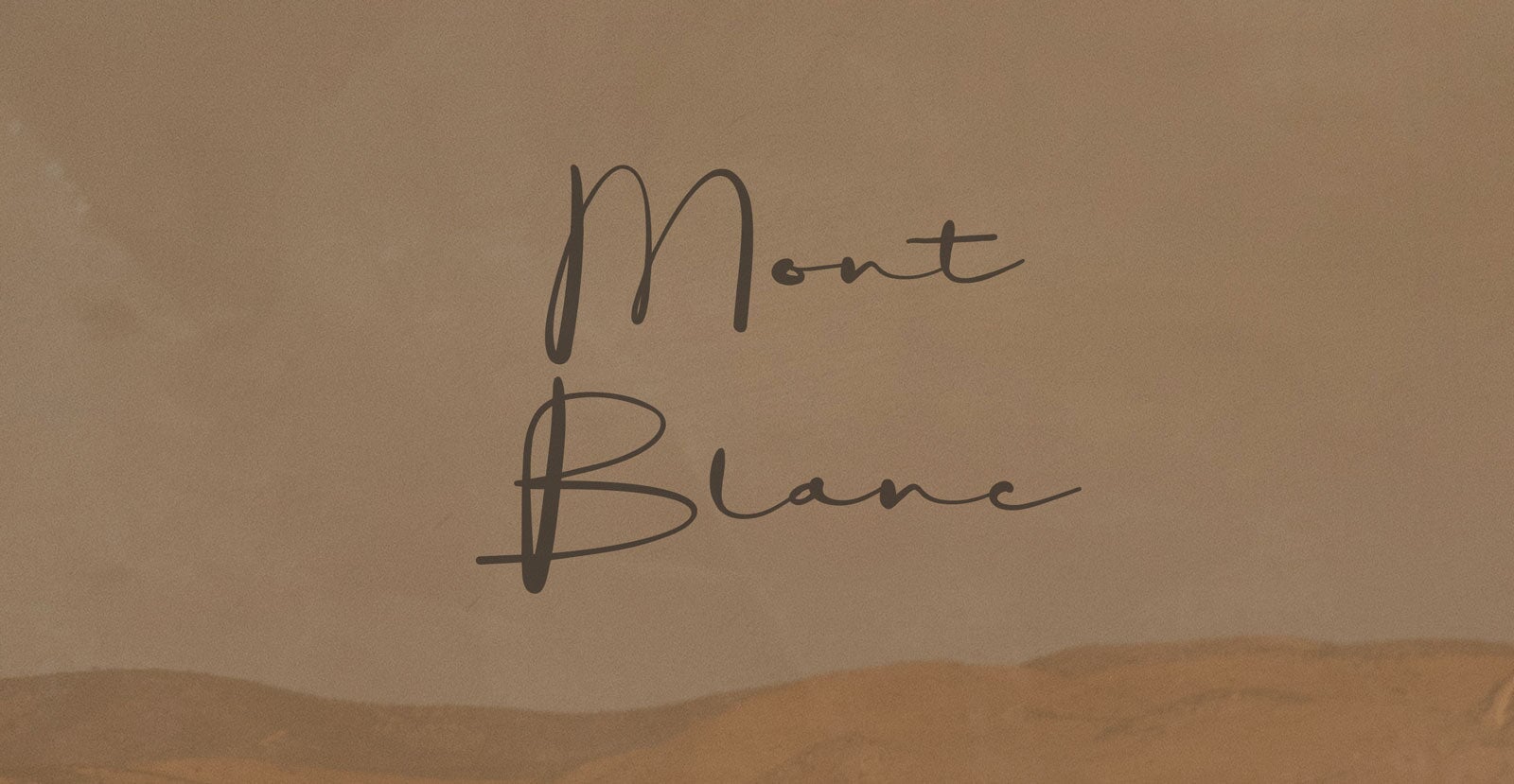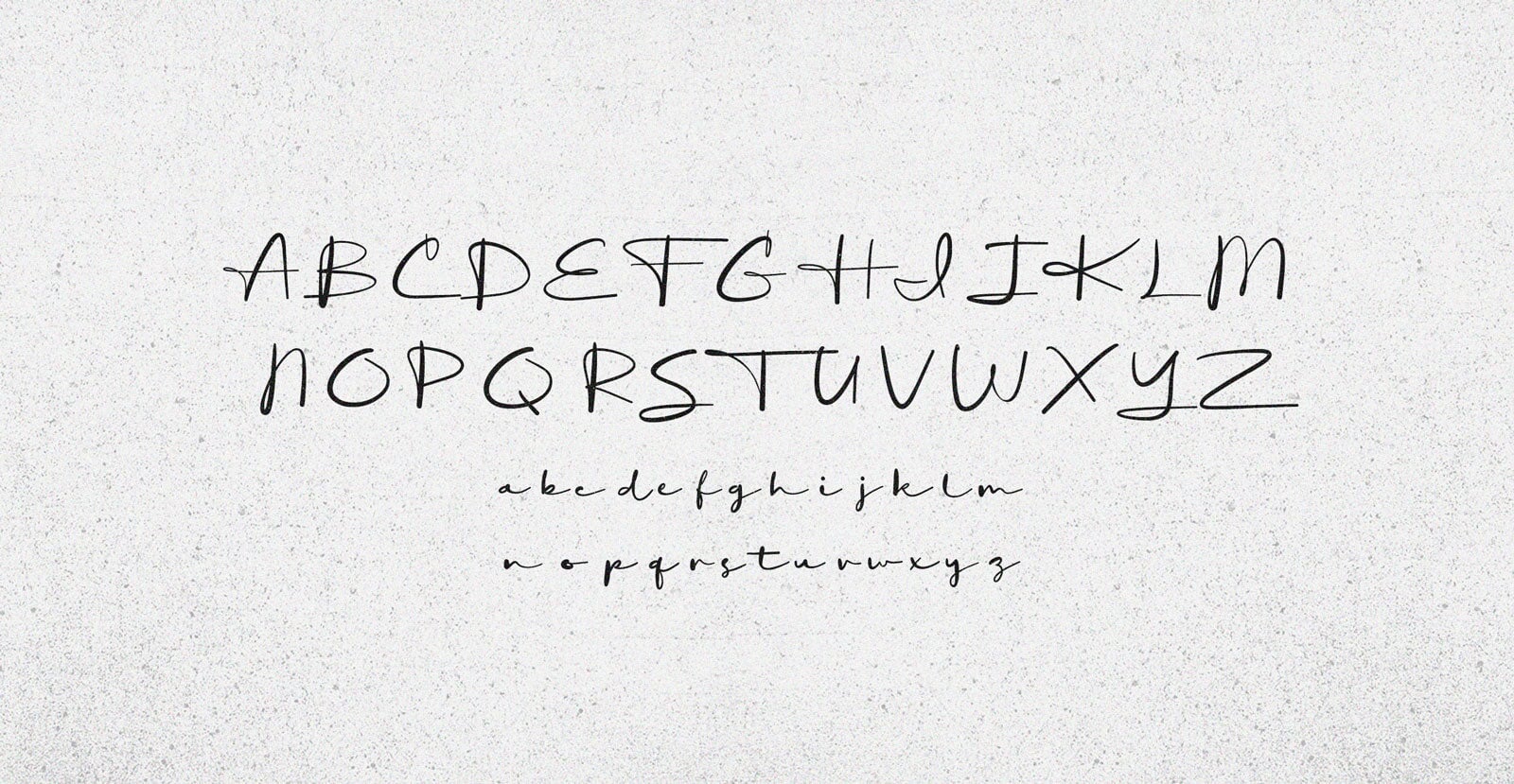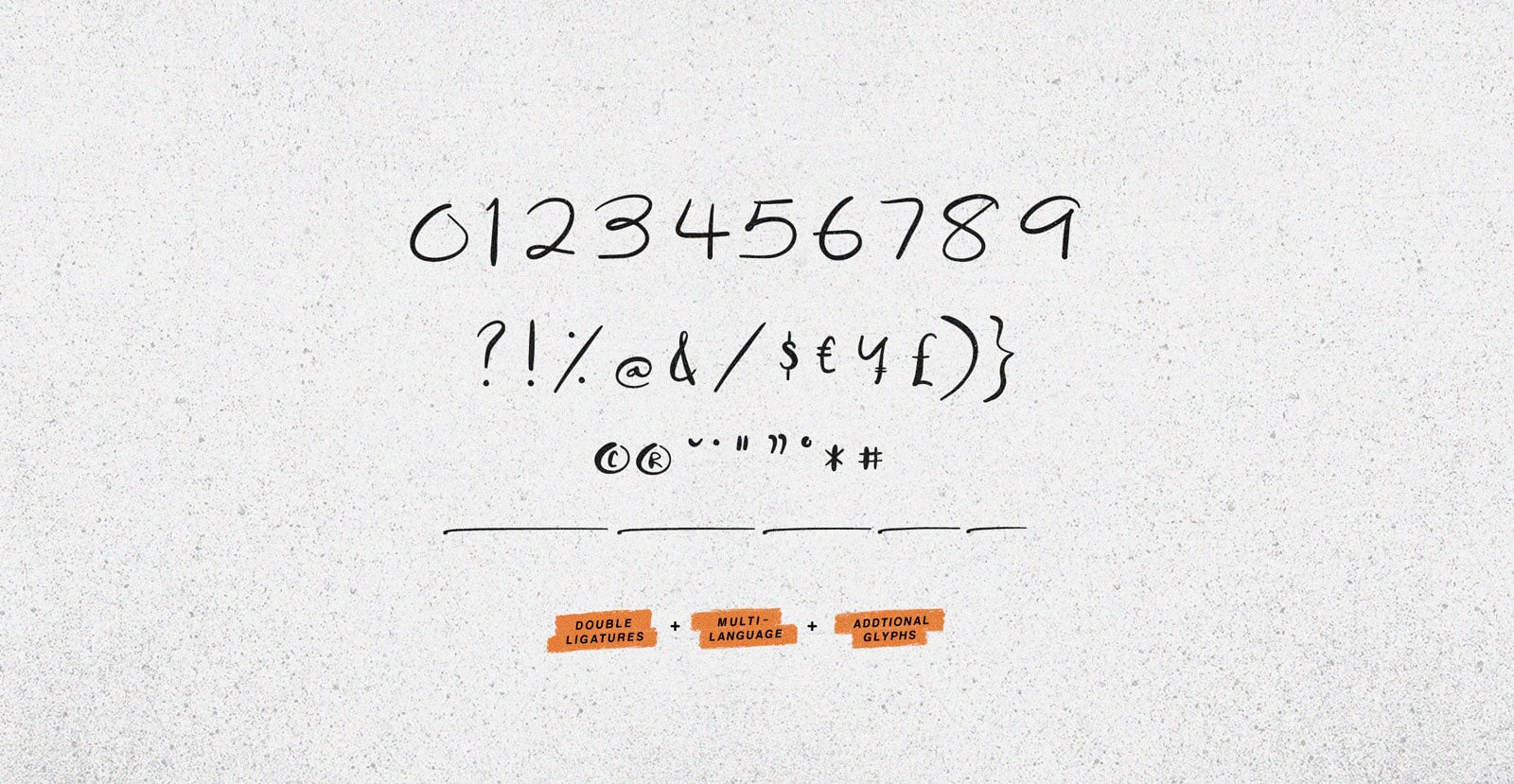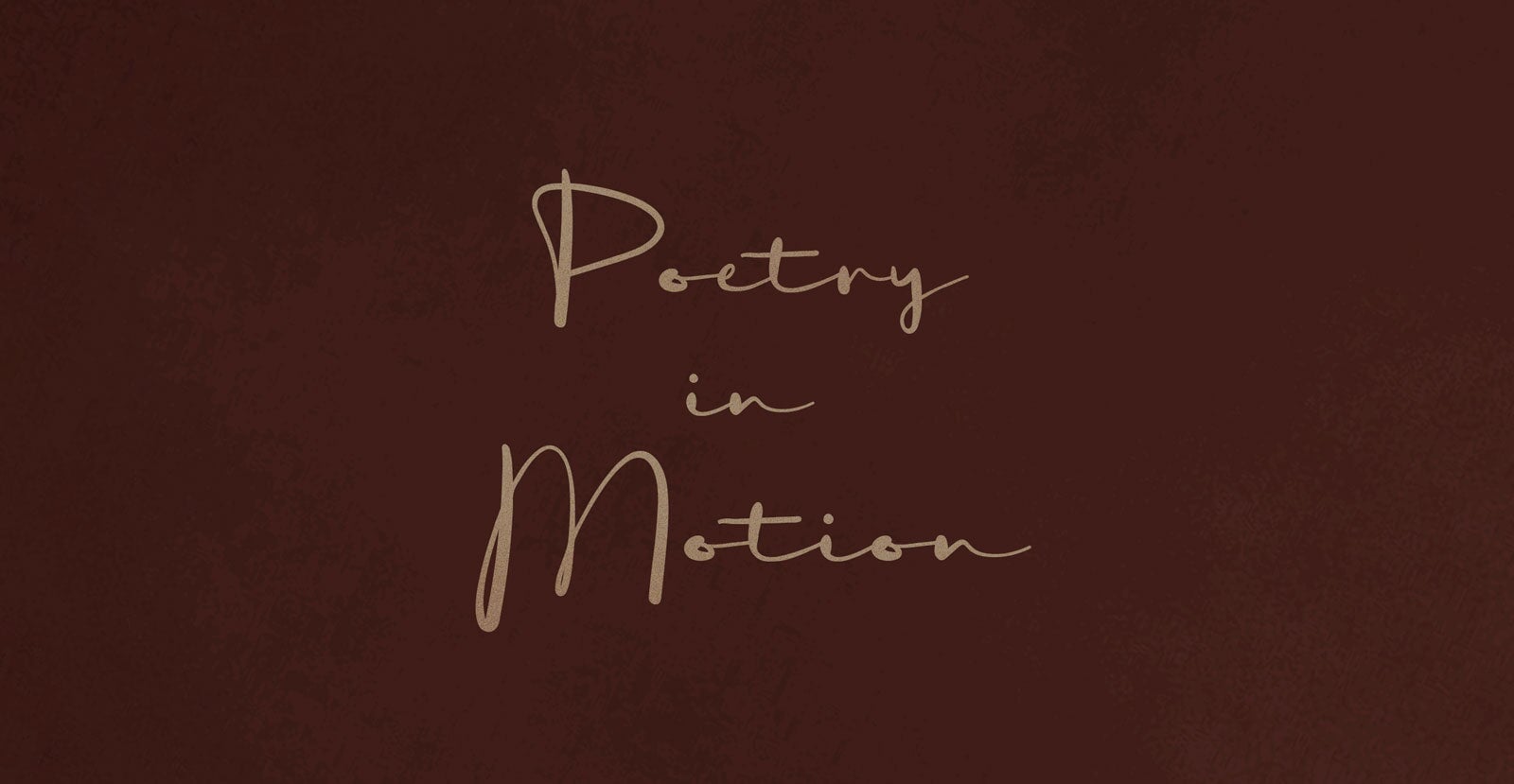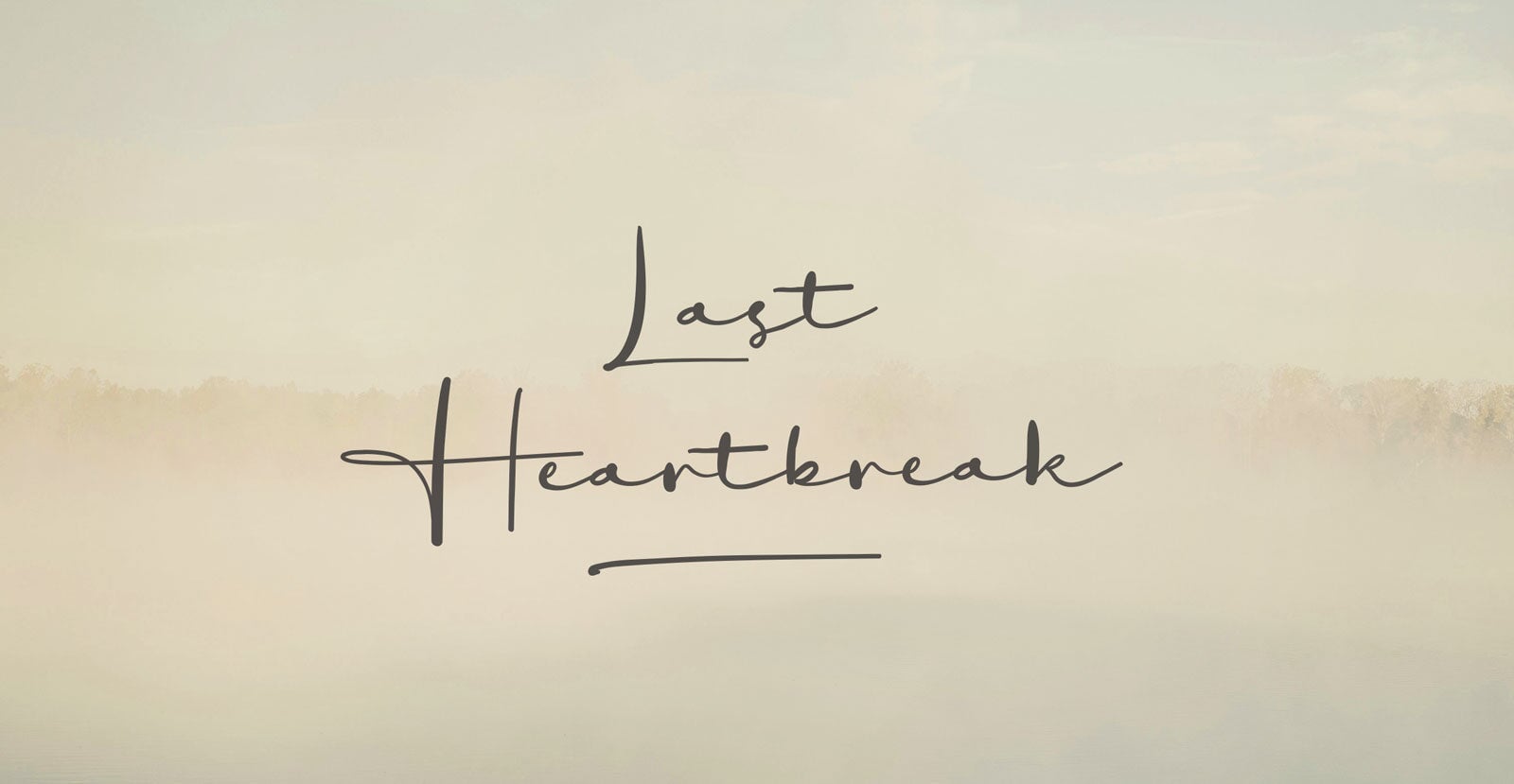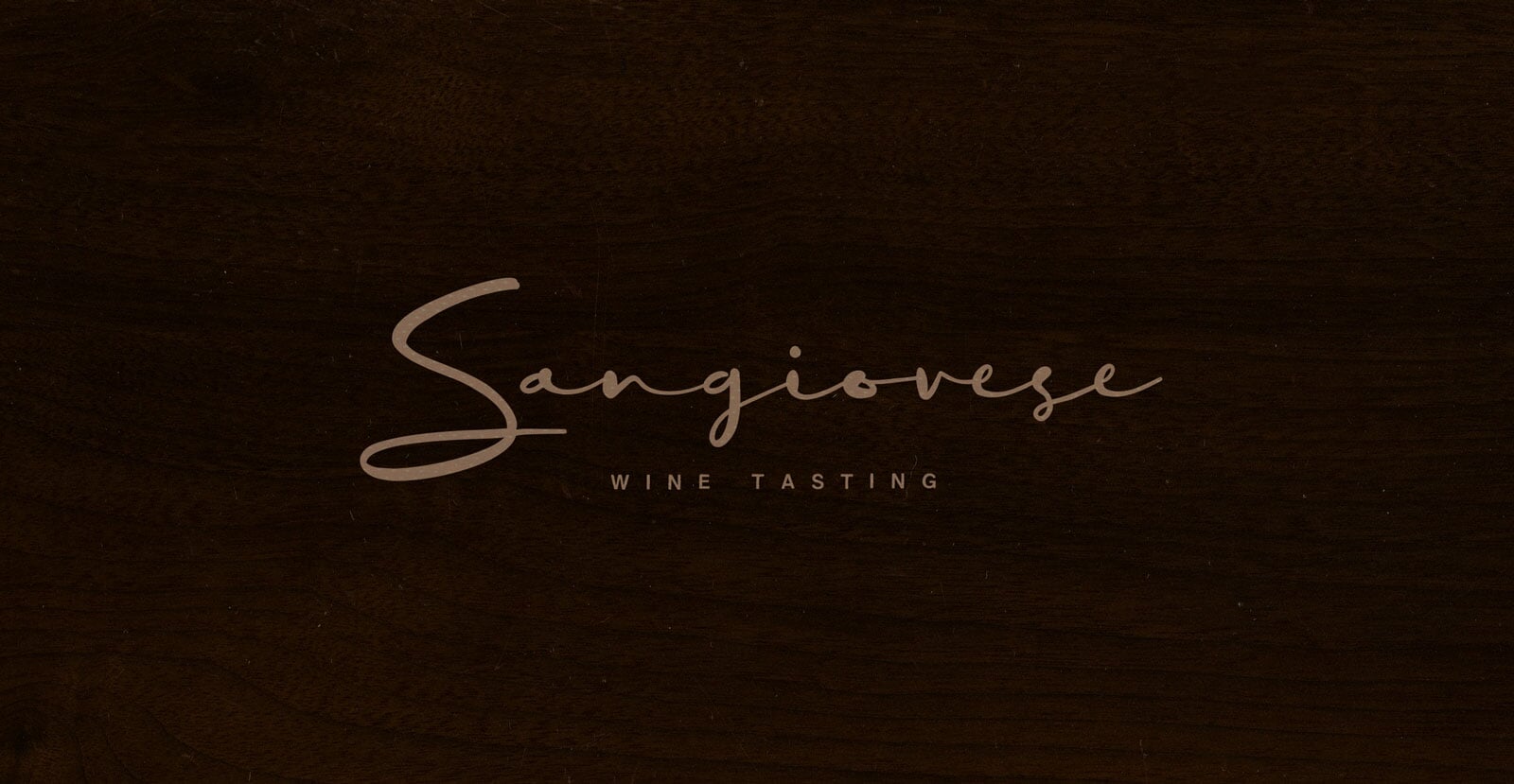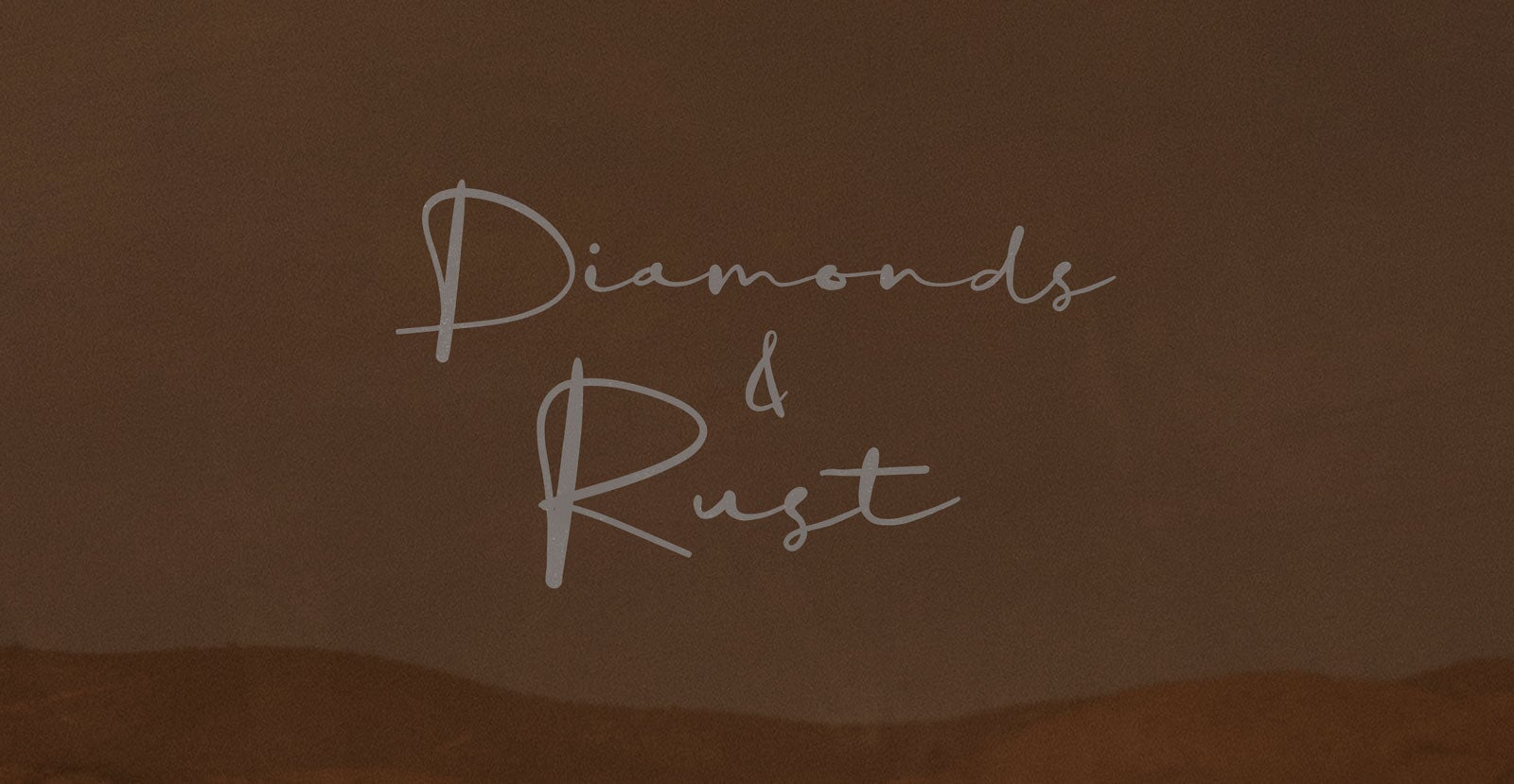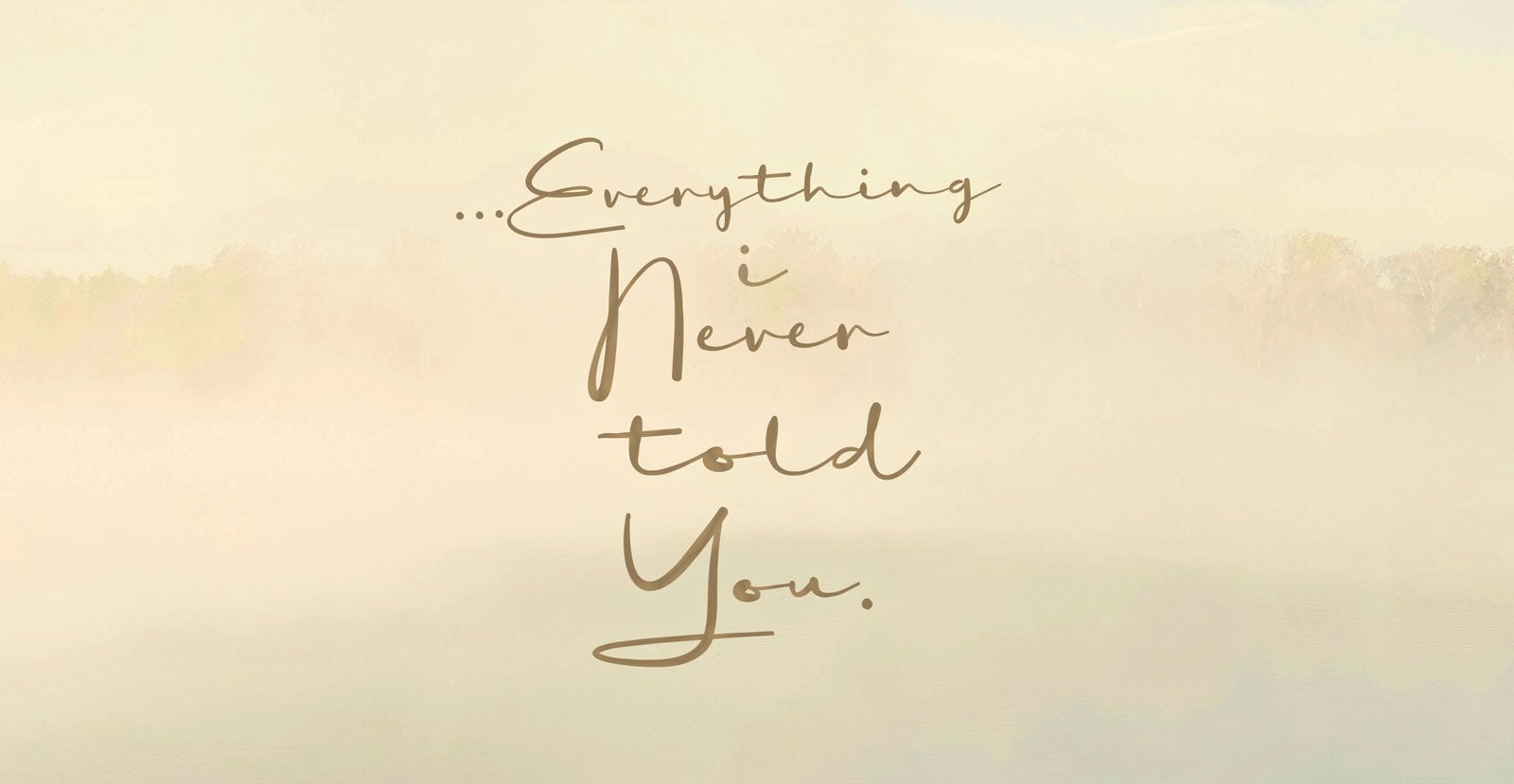
Mont Blanc
Handwritten Pen Script Font
Mont Blanc stands still with purpose. It holds weight without effort, like silence that says everything. A presence built for altitude, clarity, and the kind of elegance that doesn’t fade.